20 Best Fonts For Professional Flyer Design
Fonts For Professional Flyer Design
In matters of flyer design, choosing the right font can make a huge difference to your project. This round-up of the best font for flyers can help you find a distinctive font for your next design project.
Are you doing flyer design for a business event, party, music festival, or club occasion? If so, then you need to find a professional font flyer that suits your flyer design, event message, and target audience.
Luckily, you don’t have to spend hours searching for that perfect font anymore. Below, we have collected the 20 best fonts for flyer design from DaFont and CreatypeStudio that you can choose based on your needs.
What Is a Professional Font Flyer?
Professional font flyers are any fonts that are well suited for use in posters, flyers, or other advertising materials. Generally, flyer fonts have a bold, blocky, and eye-catching style.
More than that, professional flyer fonts also commonly come in various shapes and sizes. You can choose font types from bold fonts and brush fonts to basic fonts that are suitable for use as body text in a paragraph.
20 Best Fonts for Flyer Design
1. Lemon Milk
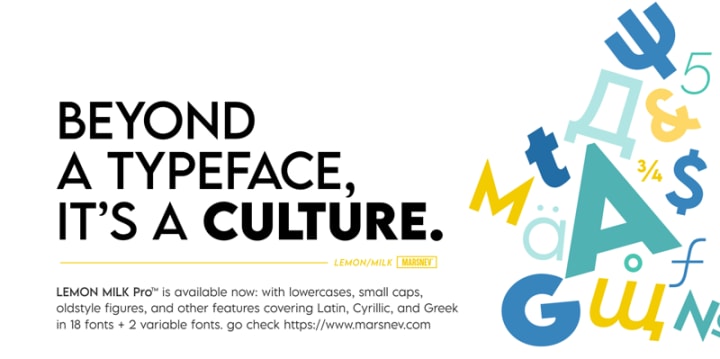
Lemon Milk is a typeface that comes with old-style figures and small caps. Complemented with a basic font style, making it perfect for use in a variety of your projects.
2. Coolvetica
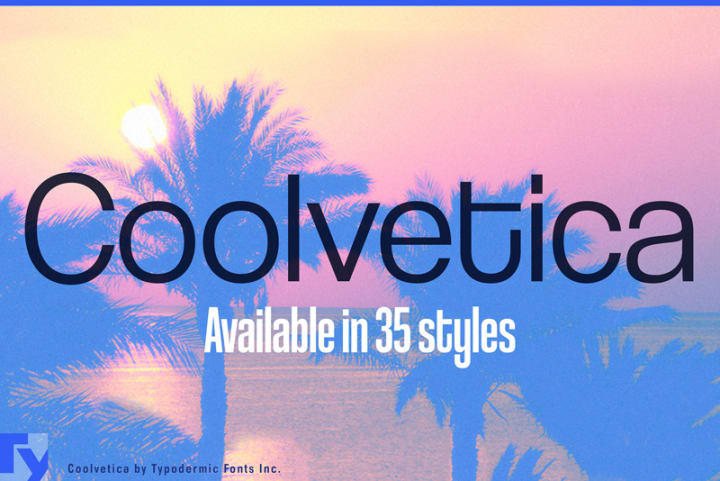
Coolvetica is a sans-serif typeface inspired by logo typefaces from the 1970s. Coolvetica revives the retro custom display letter style with extra-tight kerning and funky curls. It is a true display typeface intended for short sections, headings, and titles.
3. Keep on Truckin’
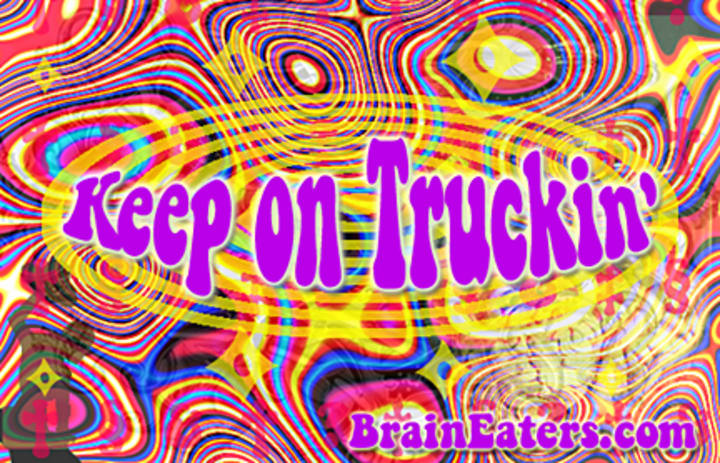
Nothing beats the thickness of Keep on Truckin’, which makes it a joy to look at on a flyer. This font is perfect for designing flyers for parties and fun music concerts.
4. Hello Valentica
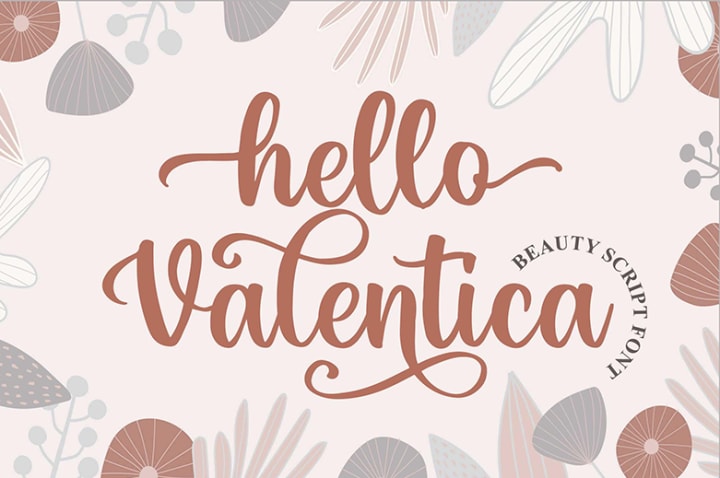
Beauty and stylish are the two words that describe Hello Valentica. Coming with a feminine design with beautifully curved corners, this font is perfect to complement your next project.
5. Autography
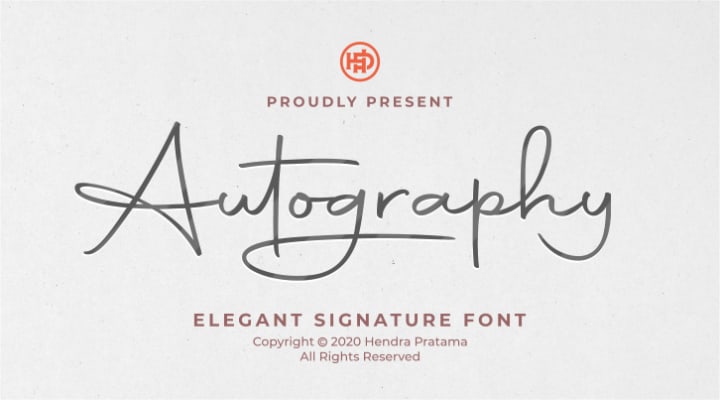
Bring your signature to your project with Autography. The thickness of this font is also beautiful and charming to appear in your flyer design.
6. Harrlem Display Vintage
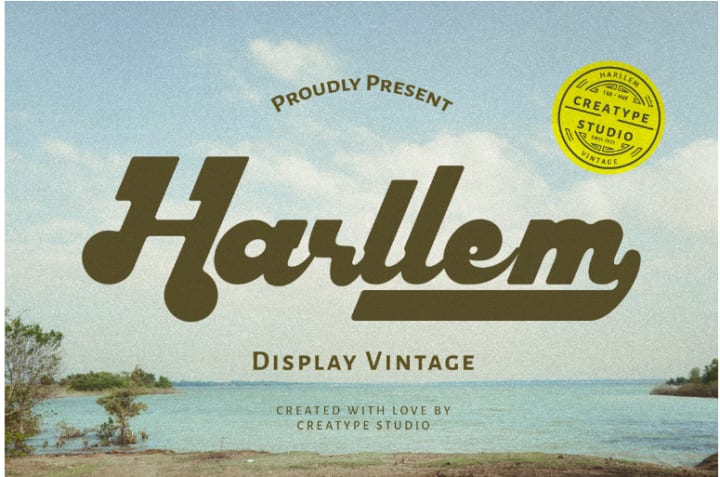
90s trends never fall out of style. Introducing Harllem, a font with a 90s vibe that gives your project a classic, vintage and fun impression. Get your audience’s attention through this typeface!
7. Komikaze Comic Fun
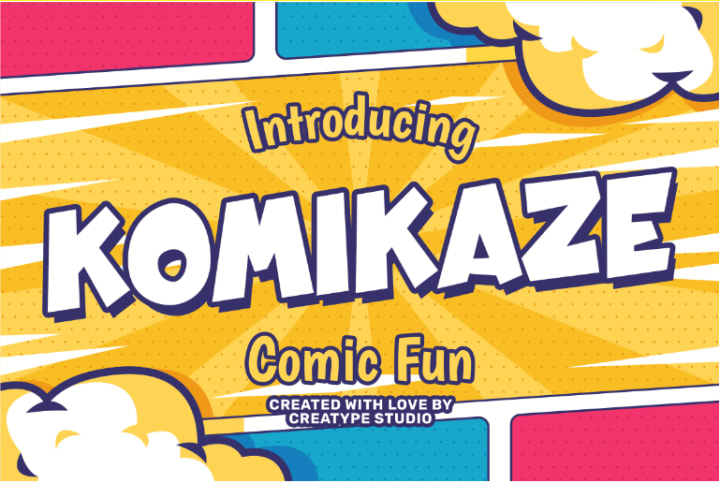
Komikaze is a creative typography that can accent the delightful side of your design projects. Go ahead and have fun messing around with Komikaze!
8. Moores Modern Serif
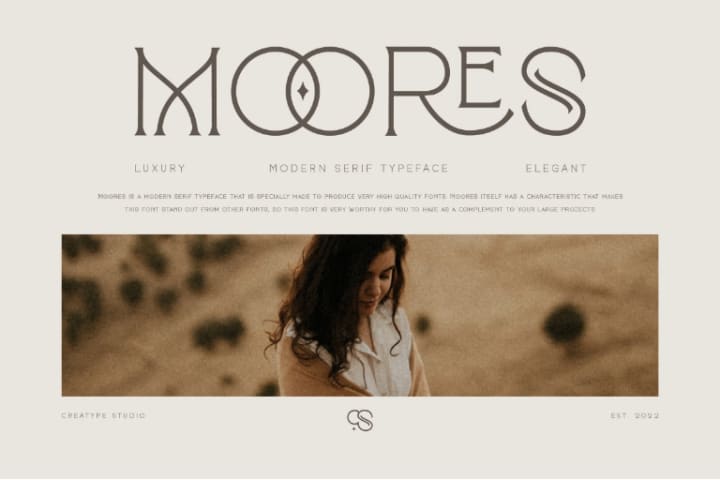
Moores is a modern serif renowned for its geometric sense of style. Without losing the geometric sense, the Moore font remains mesmerizing. It is feminine with a magical touch added to make it more appealing. Suitable for beauty, fashion, logos, and more.
9. Mangrove Sans Retro
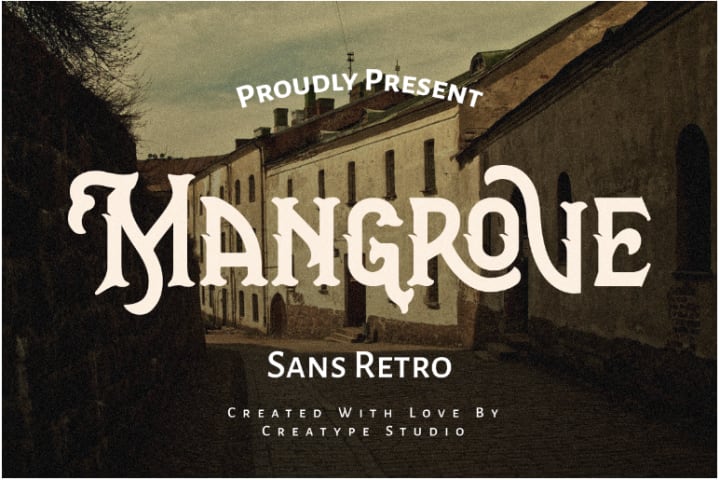
Vintage, masculine, and mysterious, that’s what Mangrove is. With all three characteristics, Mangrove will bring boldness and power to your projects.
10. Jacksonville Hand Brush
For Jacksonville, there are three words that describe it: rusty, strong, and ferocious. These characteristics of Jacksonville will render your design project more attractive and memorable to your audience!
11. Rockfull Capital Brush
Rockfull is a typeface with a detailed, natural hand-drawn finish that will add a sense of fun to your project. Rockfull is suitable for any design project, such as logos, labels, posters, or other projects.
12. Brittany Signatura Script
Brittany Signature Script is composed of a fashionable sophisticated signature style script with its own distinctive curves and graceful ink flow.
13. Quinlliyk Retro Style
Quinlliyk is a retro serif font with a bold style. The thick curves are bold and unique, giving the impression of the 60s and 70s. It comes with more than 50 unique alternates and 10 unique ligatures.
14. Porcelain Sans Serif
Porcelain is a handwritten compact sans serif font with a fine pen texture for a more personalized touch. This font is the perfect addition to the paragraph on your design project.
15. Whisholder Vintage Retro
Whisholder is a vintage and retro font with gorgeous decorative ornaments inspired by vintage lettering and art marks. With Whisholder, you can get a Victorian touch that looks sturdy and bold.
16. Dellyssion Stylish Signature
Dellyssion Stylish Signature is a handwritten script font that just looks so elegant and stylish. The Dellyssion typeface is perfect for projects with perfect handwritten nuance.
17. Vantage Retro Funk
Vantage is a retro funk typeface with a modern twist. This expertly hand-drawn retro font delivers a font that is both flawless and enjoyable to use. Vantage Retro Funk is inspired by the psychedelic movement of the mid-60s, making it a wonderful font for your big projects.
18. The Brown Fox Stylish Marker
The Brown Fox is a stylized marker font with a brush style perfect for your most recent project.
19. Therhog Graffiti Brush
Therhog is a colored stylized graffiti brush inspired by the art of graffiti street projects.
20. Hardbeat Handbrush Caps
Hardbeat Handbrush Caps is a typeface that conveys an energetic message. Shown with highly distinctive hand strokes, the tonality of this font is detailed and bold.
Also Read: Bad Kerning in Typography: Here Also The Example and Tips
5 Tips in Choosing the Best Font for Flyer
Still hesitant to choose the most appropriate font for your flyer design? If so, the 5 tips below might help. Read them!
1. Pick Fonts that Best Suit the Content of the Flyer
As you know, fonts come in various styles and designs. For that reason, it is important for you to choose fonts that best suit the flyer you are currently designing.
For example, if you are designing a flyer to share information about a music concert, then you can choose a stylish bold brush font that can attract the attention of your audience.
In contrast, you can choose a basic bold font if you are designing a flyer for a business event or other formal occasion.
2. Take a Big Title Font
The title is the most important element of a flyer. Therefore, you need to use a big and bold font with the most creative style possible for the title of your flyer. With a big and bold font, it can attract the audience’s attention and make them get the content of the flyer you are designing.
3. Choose a Sans-Serif Font for Paragraphs
If you are allowed to choose fonts with the most creative style possible for the title, then it does not apply to the fonts in the body text in the paragraphs of your flyer.
Why? Because the purpose of each paragraph in a flyer is to be readable and understandable. Hence, choosing a sans-serif font for your paragraphs is the most ideal choice.
However, you can also choose fonts other than sans-serif as long as they are easy to read by the audience. Choose fonts with a basic style as they are generally suitable for the body text of a paragraph.
4. Apply Font Boldness Well
In addition to the font type, you also have to pay attention to the thickness of the font that you will use.
Nevertheless, all the designs of your flyer will definitely be printed on various types of paper, from glossy paper to matte paper. Thus, it would be important for you to choose your font thickness wisely.
5. Prioritize User Experience and Readability
Unquestionably, the purpose of making flyers is definitely for the audience. For that, you have to consider user experience when designing your flyer.
Be free to choose fonts, colors, and content layout. But one thing that you must prioritize is to keep making flyers that are easy to read so that the message of your flyer is conveyed properly.
Which Best Font for Flyer Do You Favor the Most?
When you’re looking for the best font for flyers, the options available in the market are numerous. For this reason, you have to consider various things before determining which one is most suitable for your flyer. So, from the 20 fonts above, which one is your favorite? Choose the most suitable one!